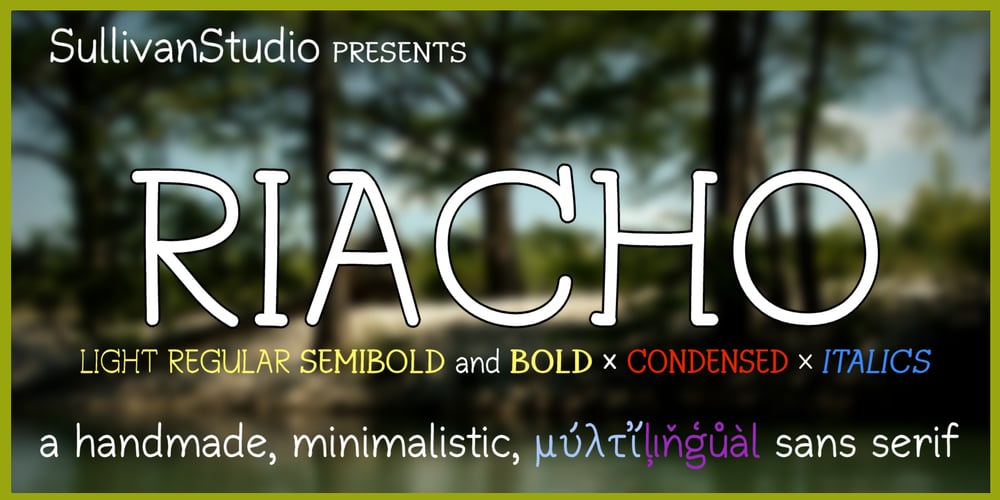
Riacho Font Family was designed by Ariel Sullivan and published by SullivanStudio. Riacho contains 16 styles and family package options. Riacho is a Portuguese word for “creek”. It evokes movement and tranquility. It was in this spirit that I created Riacho: I wanted a typeface that would bring the industrial dynamism of a sans serif while passing the informality and trust of an old friend.Riacho is completely handmade, stylus-designed, with a rational, objective attitude.Riacho is sans, but its capital letters are serif. The kerning is rigorous, and the ligatures are reduced to the essentials without distractions. The font features a subtly emotive handwriting, which makes it ideal for editorial material for children and young people.Poems, love letters, food recipes … everything that is about feelings and sensations looks fresh and elegant dressed in Riacho!Riacho, for its friendly sobriety, also looks (and prints) great with scientific texts. Mathematical equations typeset in LaTeX / XeTeX systems have never looked so good, not only on PowerPoint/beamer/OpenOffice slides but also on paper. Riacho’s x-height is similar to Times Roman and Computer Modern fonts, so typesetting professional equations with both glyph sets together flows naturally.Riacho has lots of OpenType features: fractions, old style figures, scientific inferiors, proportional numbers, localized forms…Each Riacho style contains 1195 glyphs (19120 in the whole family, 16 styles), including Eastern/Western Europe languages and polytonic Greek (please refer to gallery image #10) . For best results on screen display (PDFs, presentations, movies), the Semibold subfamily is recommended.